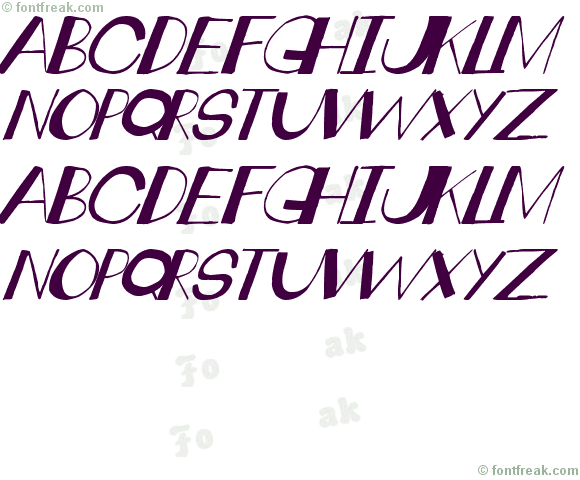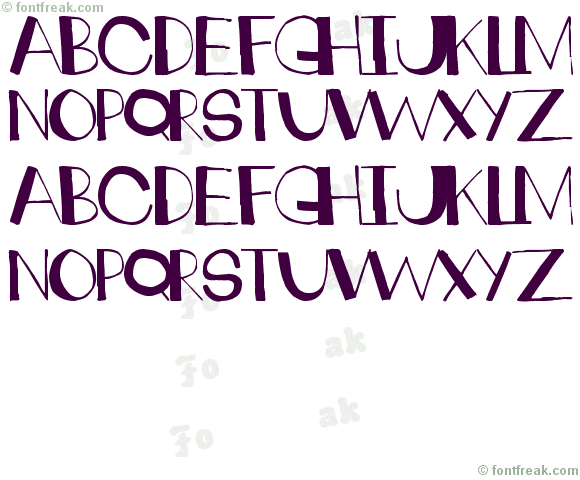
crankdeal
crankdeal tilt
Crankdeal is a captivating display typeface crafted by XEROGRAPHER FONTS, launched in 2012 as freeware. This font showcases a unique blend of bold strokes and an informal tilt, which gives it an energetic and youthful vibe. The striking visual characteristics of the crankdeal font include varying stroke weights that add dynamism, while the slightly irregular spacing enhances its hand-drawn appearance. This playful aesthetic is perfect for projects that aim to grab attention and convey a sense of creativity.
Ideal use cases for the crankdeal font include eye-catching movie posters, trendy restaurant menus, and vibrant event flyers. It can also be employed effectively in social media graphics, making it a favorite among content creators looking to stand out in a crowded digital landscape. Graphic designers will appreciate its versatility, as it can be adapted for branding projects, merchandise designs, and even children's books, where a whimsical touch is essential.
The target audience for crankdeal encompasses graphic designers, small business owners, and creative professionals who seek a font that is both functional and visually striking. Its approachable style makes it suitable for a diverse range of applications, allowing users to convey messages with flair.
What sets the crankdeal font apart is its ability to blend a fun, casual style with professional usability. It captures attention without overwhelming the viewer, making it a fantastic choice for any project aimed at engaging an audience. With the crankdeal font free download, you can easily incorporate this distinctive typeface into your design toolkit and elevate your creative projects to new heights. Whether you're designing for print or digital media, crankdeal offers a refreshing option that promises to make your work memorable.